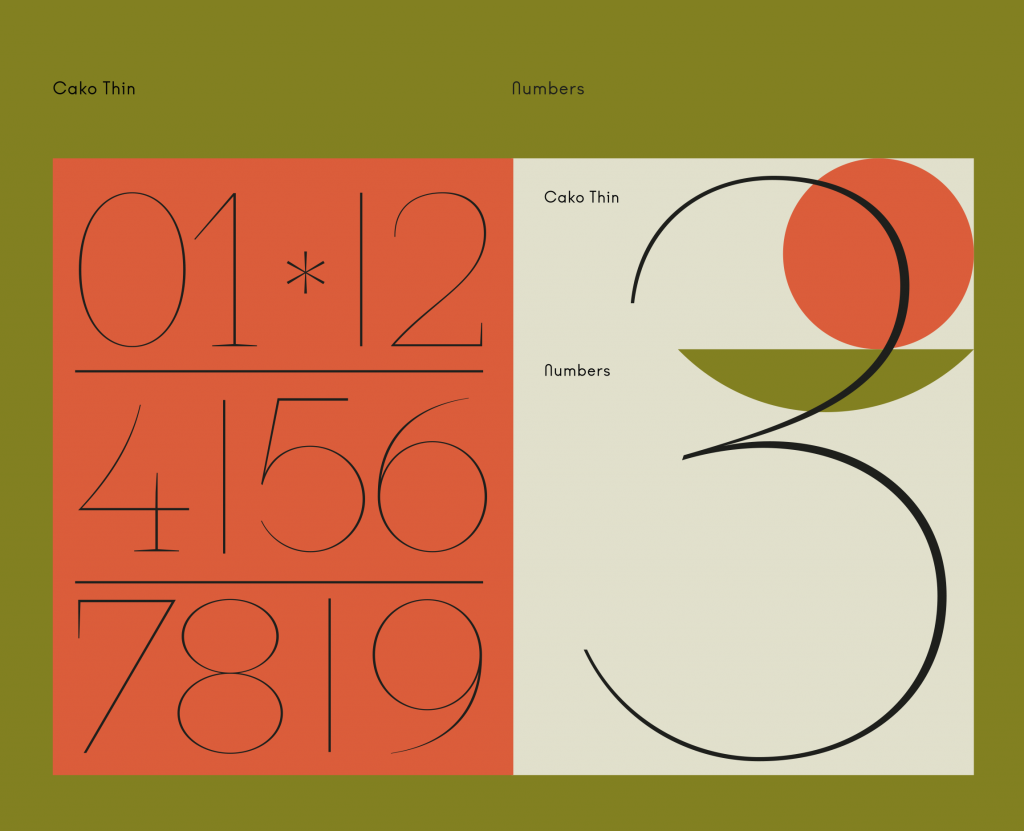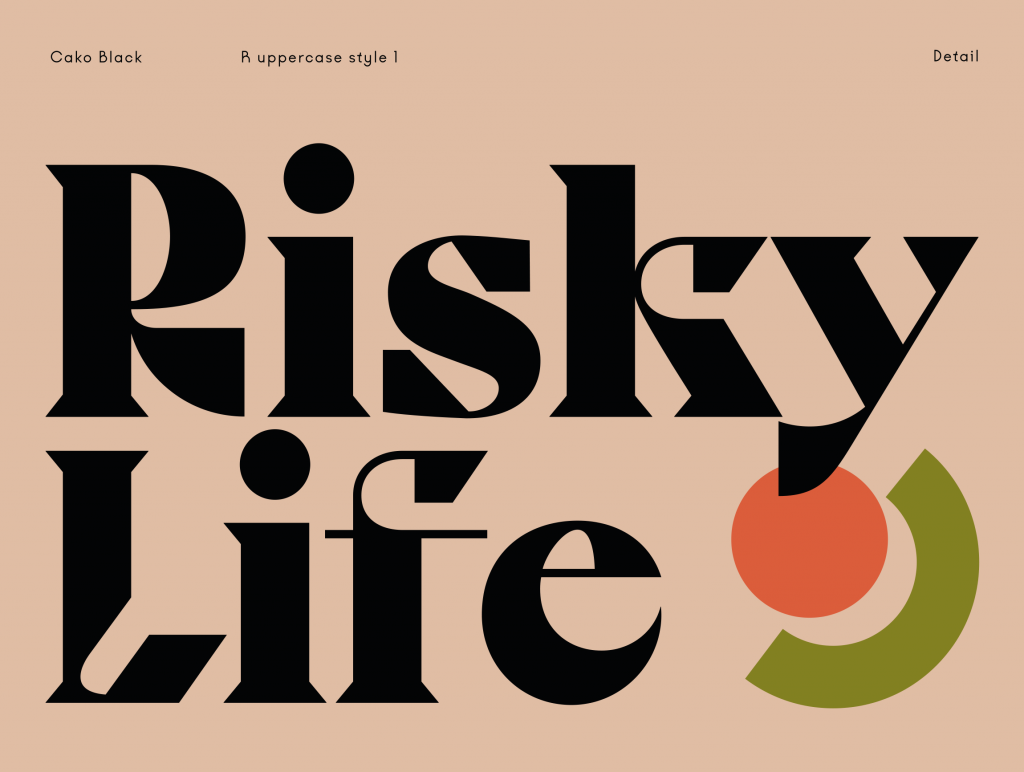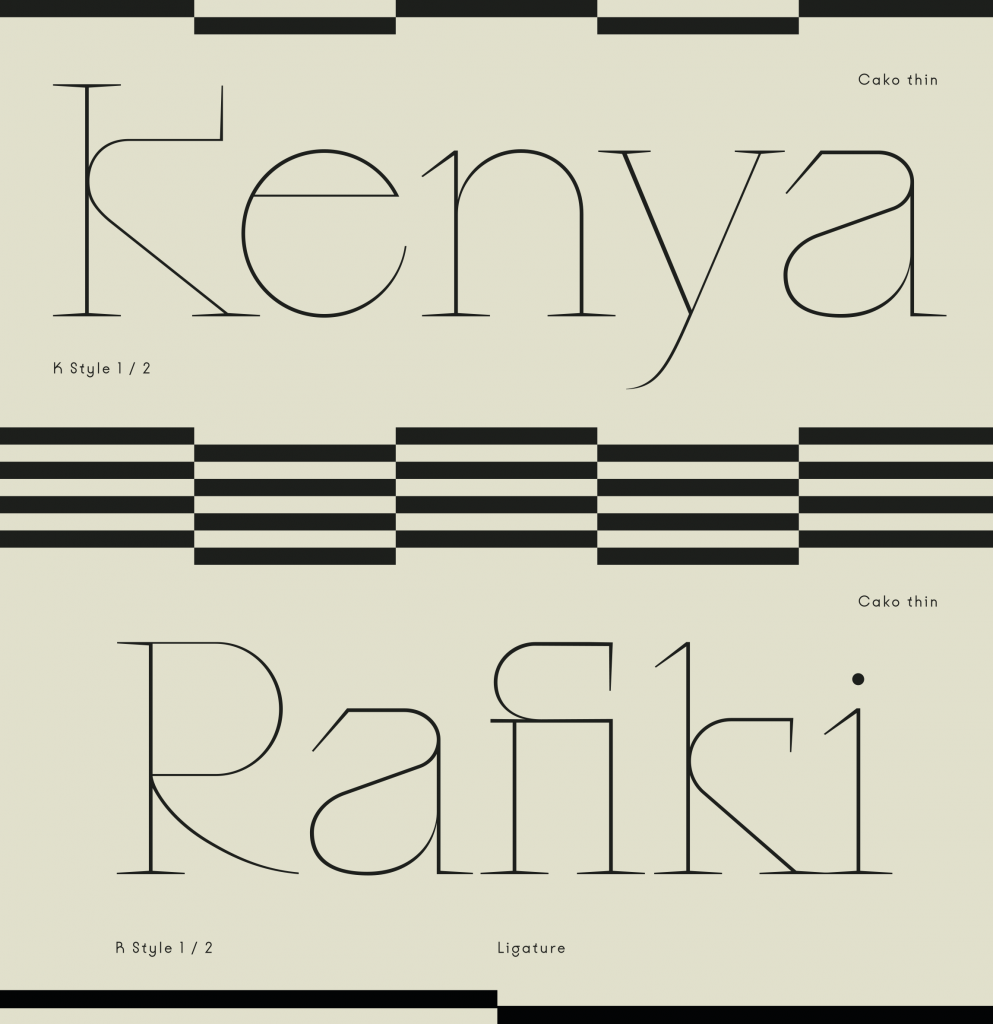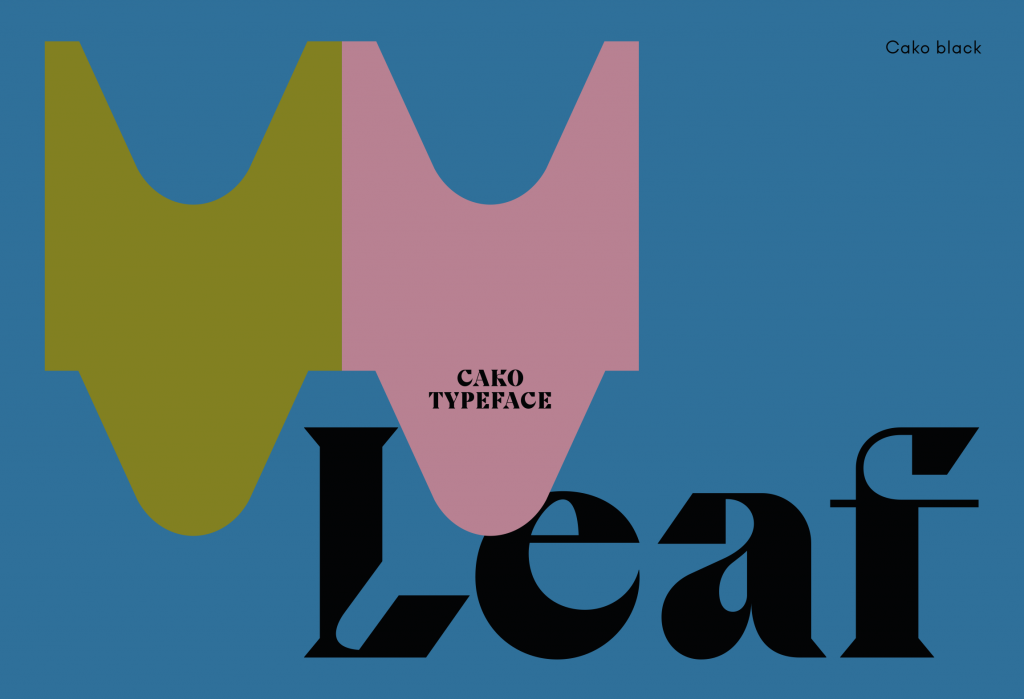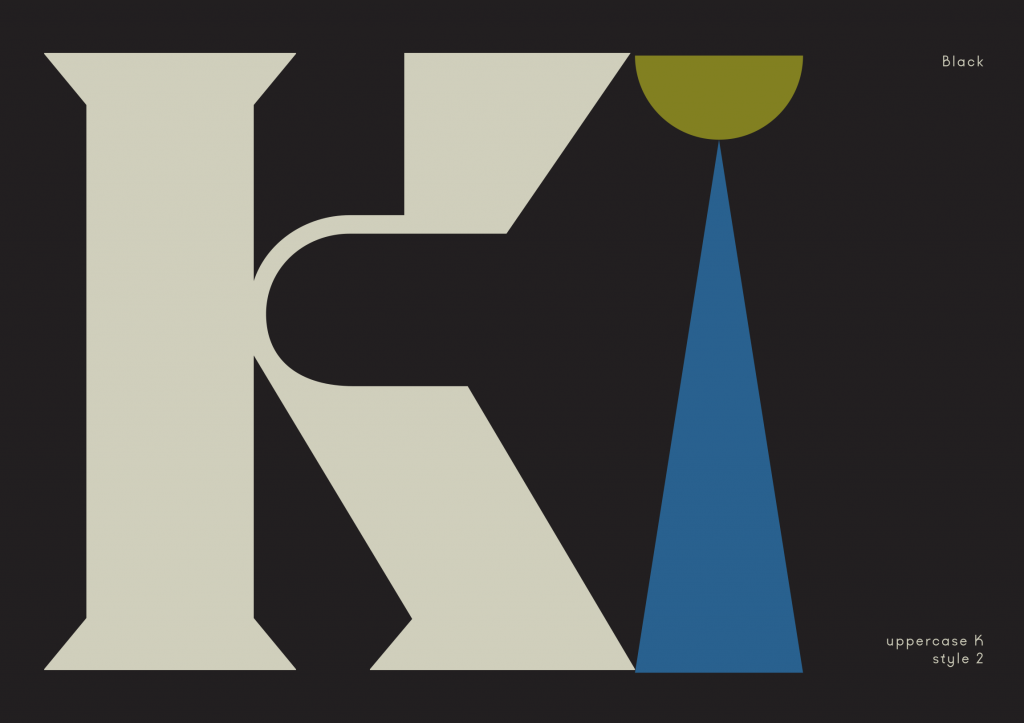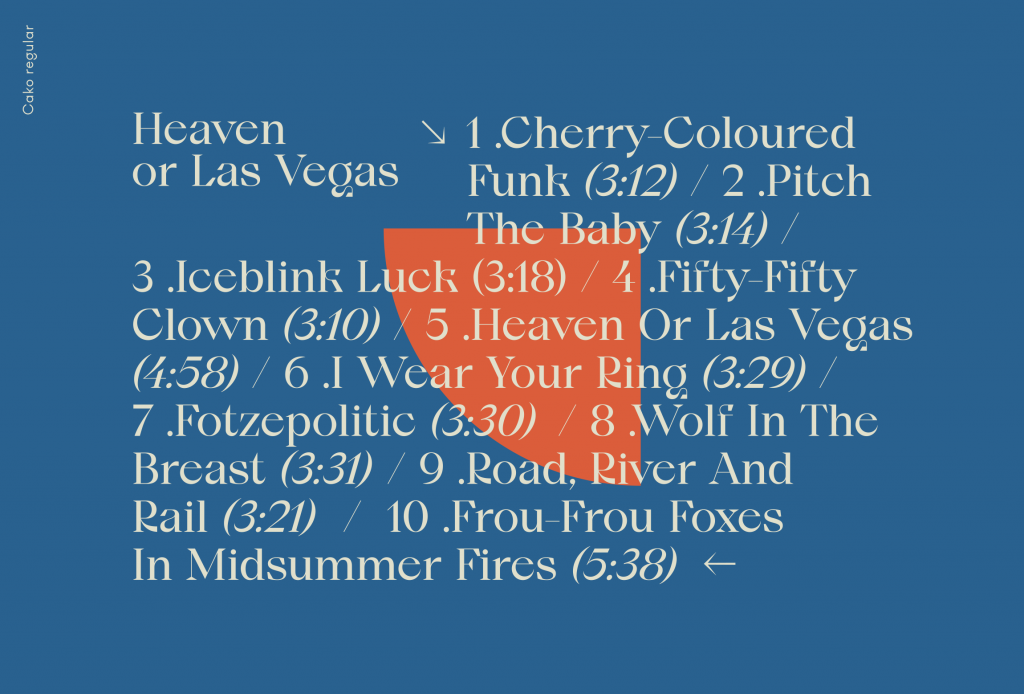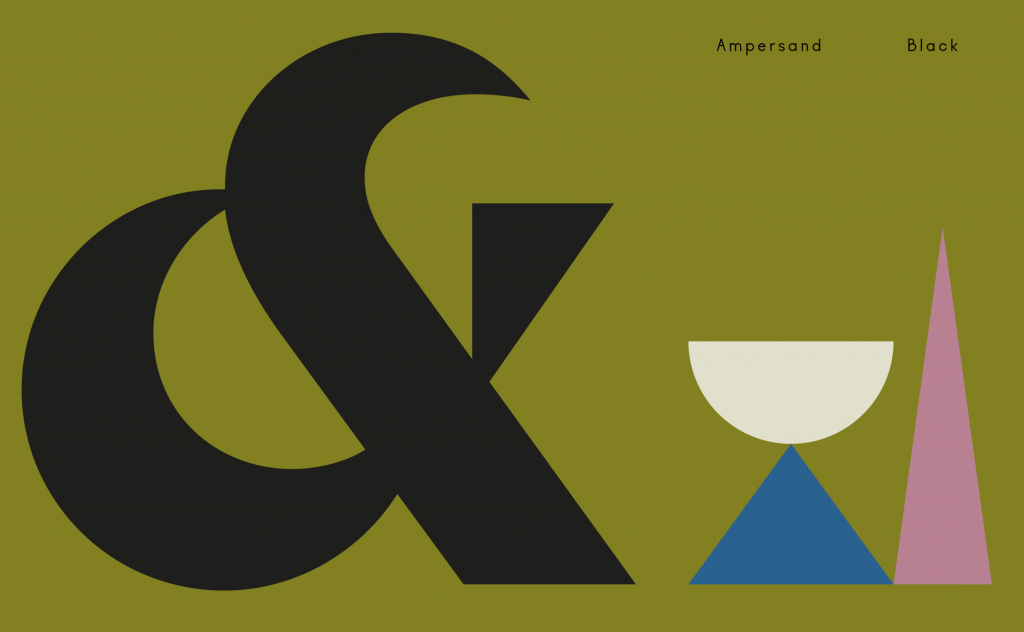
Name: Cako
Designer: Jérémy Schneider
Foundry: VJ Type (Violaine & Jérémy)
Release Date: September 2019
Back Story: The sure-handed, lighthearted work of Parisian designers Violaine Orsoni and Jérémy Schneider layers minimalist design with classical line illustrations influenced by the great painters Caravaggio and Ingres. The result? A timeless aesthetic with a modern twist. The pair also has a charming tendency to surprise their clients with bespoke typefaces when none were part of the project scope. Orsoni describes the typical reaction as someone falling in love with a present they didn’t know they were about to receive. One such typeface? The brand new Cako.
“It was one of the directions Jérémy created for a brand identity but was never presented to the client,” says Orsoni. “Although we design a great deal of lettering for our projects, we only use around 20% of what’s produced. With Cako, we saw from the first few characters that it could become a full typeface.”
Strong, smooth curves abut severe angles, creating wildly-shaped counters that take on a life of their own.
Why’s it called Cako? “It’s a made-up name. It comes from the first letters Jérémy designed, which matched super well together,” says Orsoni. “And we liked the sound of it.” (Observation: It sounds like cake. And who doesn’t like cake?)
What are its distinguishing characteristics? The Art Deco-inspired shapes are both classic and futuristic, and the wide range of glyph alternates allows designers to be as crazy or straightforward as they prefer. Strong, smooth curves abut severe angles, creating wildly-shaped counters that take on a life of their own. Letterforms are interrupted by sudden contrasts of thick and thin strokes in odd places; the legs of the K are hit with a U-shaped void, and the capital L is similarly afflicted by a void, this time shaped like a chisel. In the Thin weight, the strokes are as delicate and sensitive as insect antennae.
Numerals are especially lyrical: choose between full voluptuous counters outlined with springy, animated strokes tapering to fine points (Thin) or solid, almost folkloric shapes with egg-shaped counters (Black).
What should I use it for? Initially, Jérémy envisioned Cako as a titling or logo font, and both the Black and Thin weights are excellent for all display and headlining uses. The regular weight was designed as a text typeface for situations where a little extra style is welcome along with good legibility.
What other typefaces do you like to pair it with? Try it with geometric sans serifs like VJ Type’s Kobe and Raisonné from Colophon, or Louize from 205 TF, whose proportions harmonize nicely with Cako’s strong, individualistic shapes.